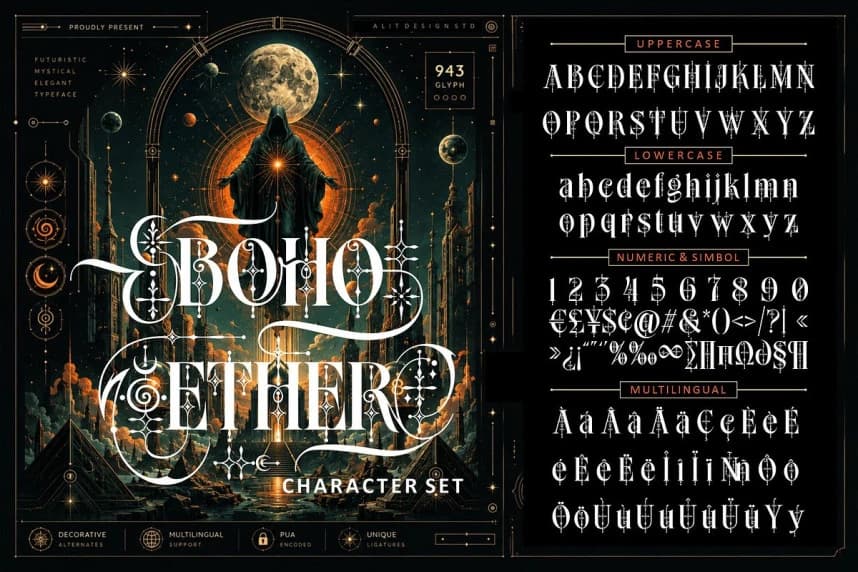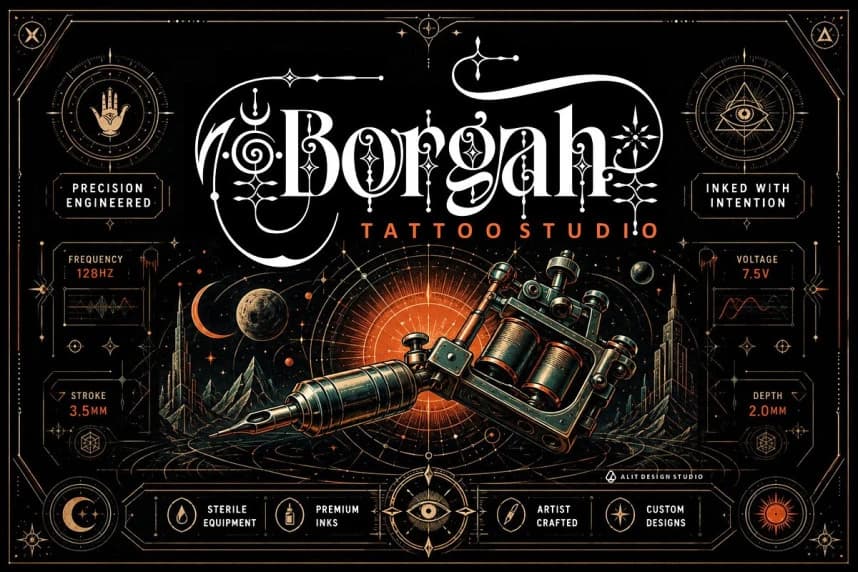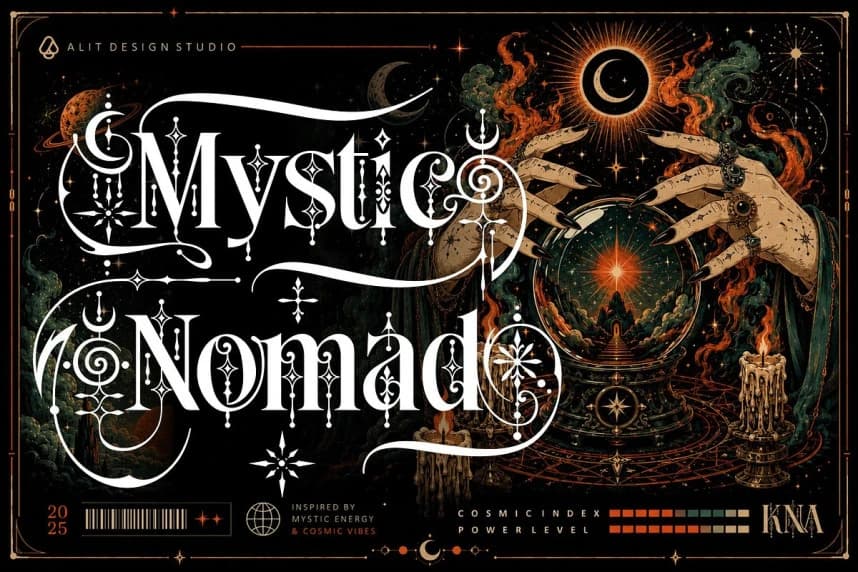
Boho Ether Font
Boho Ether Font, a beautifully crafted typeface that effortlessly blends bohemian free-spiritedness with ethereal elegance. Designed for creatives who demand both versatility and premium style, this font is the perfect choice for making your designs stand out with a touch of sophisticated, organic charm.